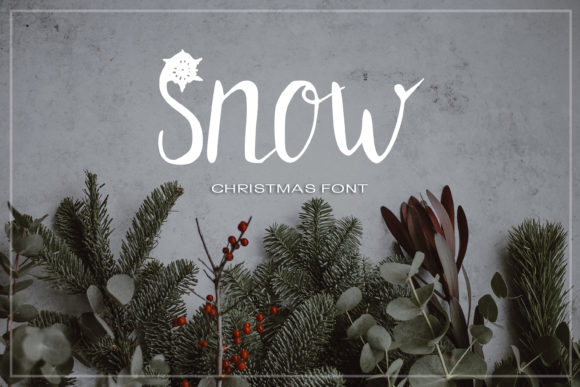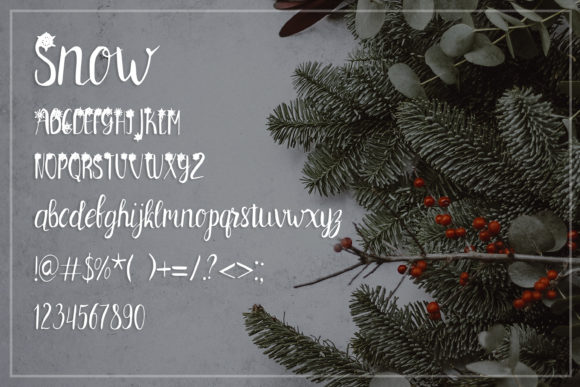
Snow Font
About Snow Font
Snow is a beautiful and flowing handwritten font. It is fit for holiday-themed greeting cards and for any crafting project that requires a romantic touch.